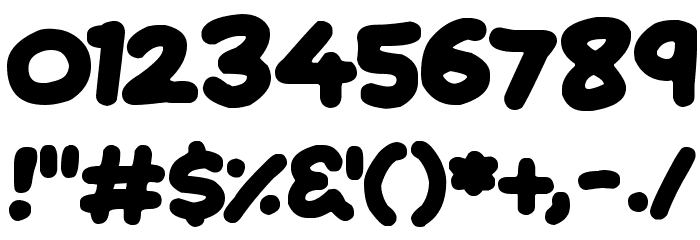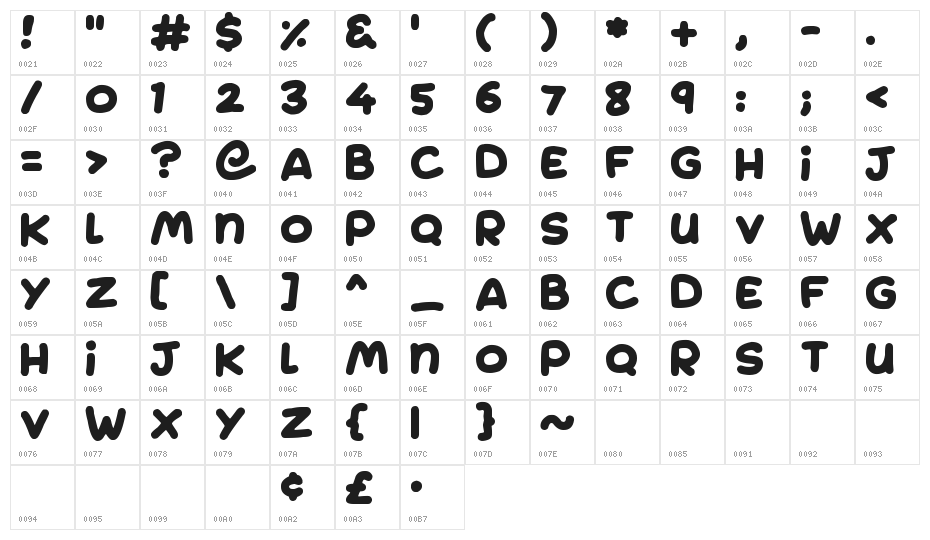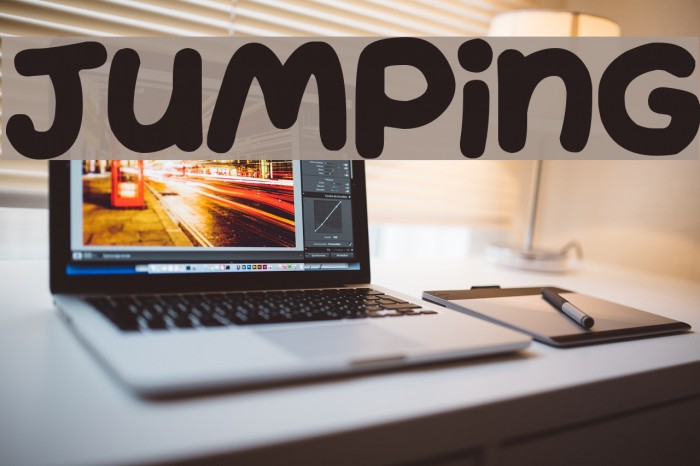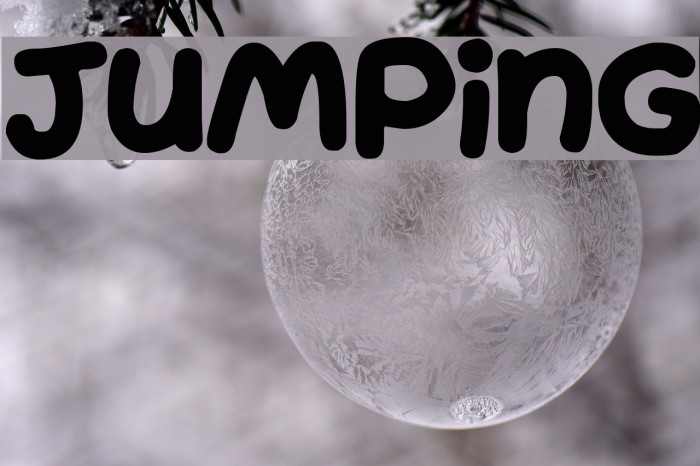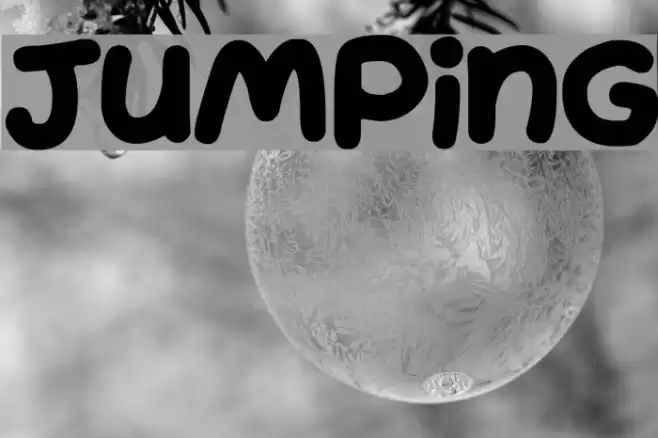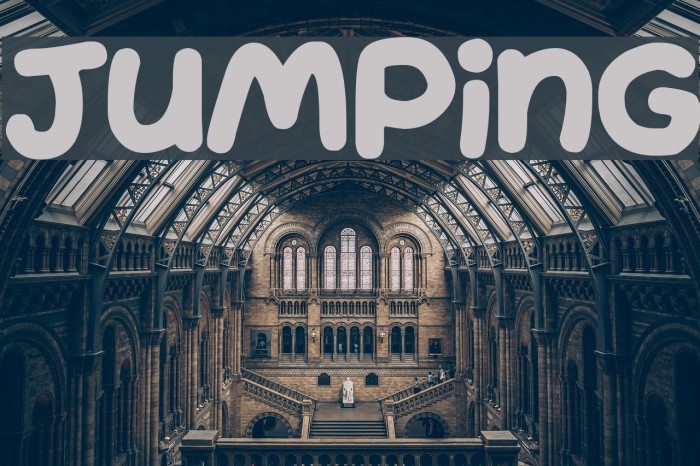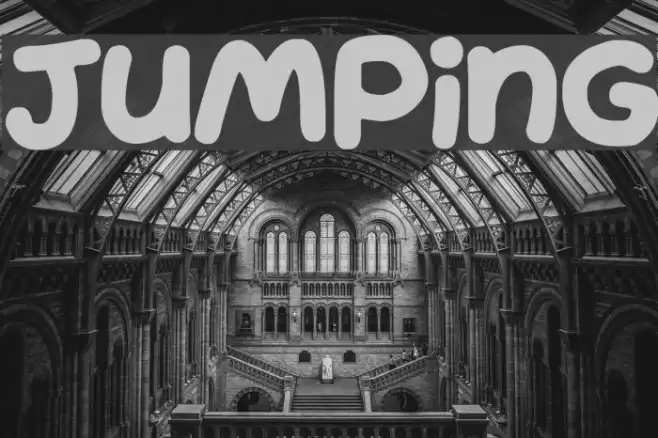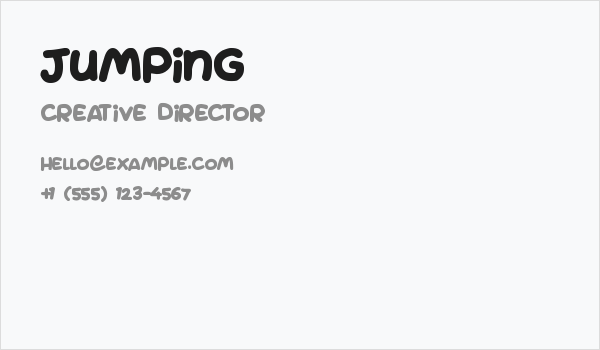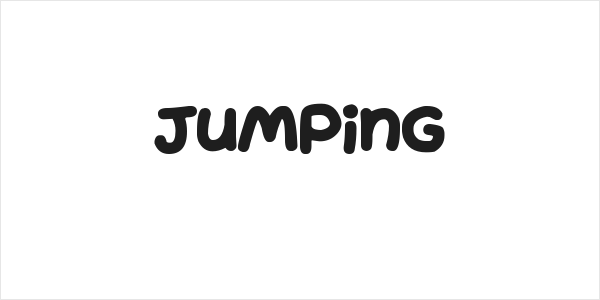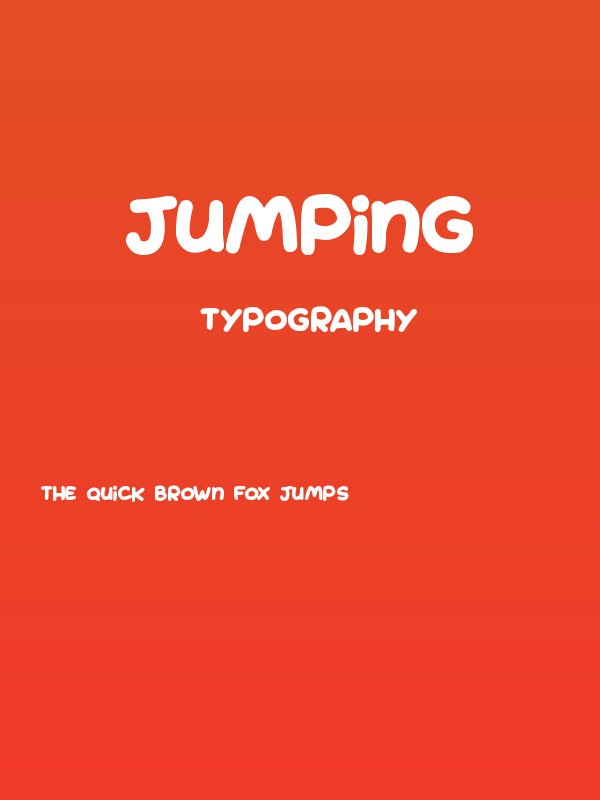
Jumping Font
Jumping Description
This playful and bold font features rounded, bubbly characters that convey a sense of fun and energy. The letters are thick and have a consistent weight, giving them a strong presence on the page. The rounded edges and soft curves create a friendly and approachable feel, making it ideal for projects that aim to capture attention with a lighthearted tone. The numbers and special characters maintain the same playful style, ensuring consistency across all text elements.
| Proposed Projects | Ideal for children's books, playful branding, party invitations, and casual posters. |